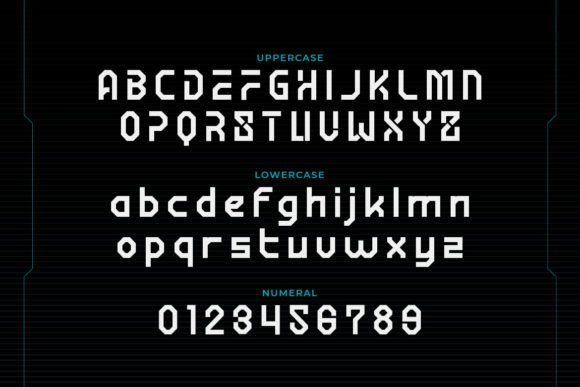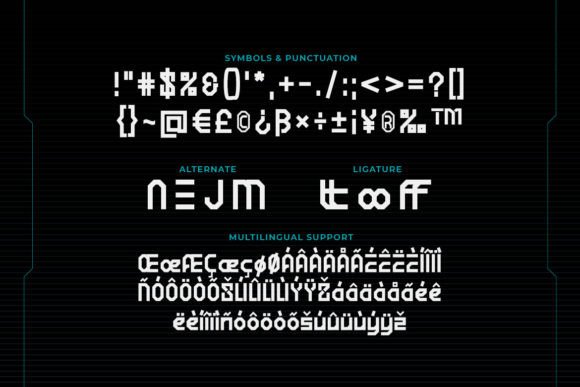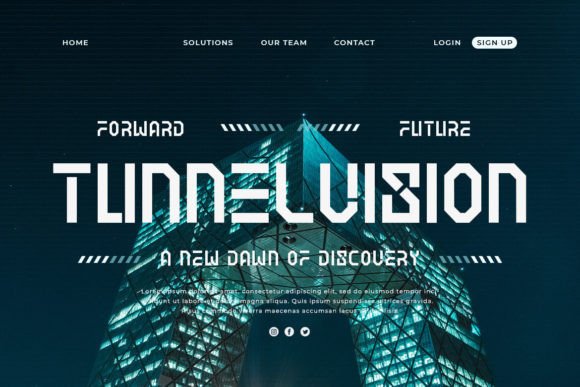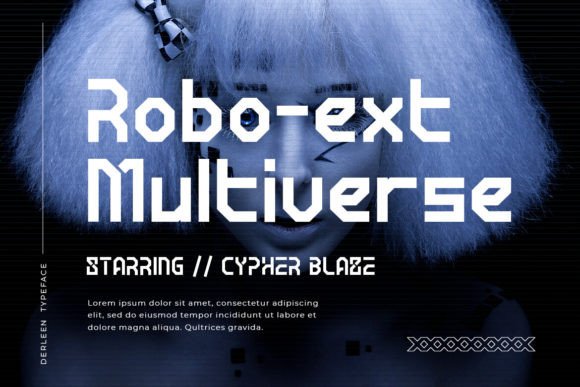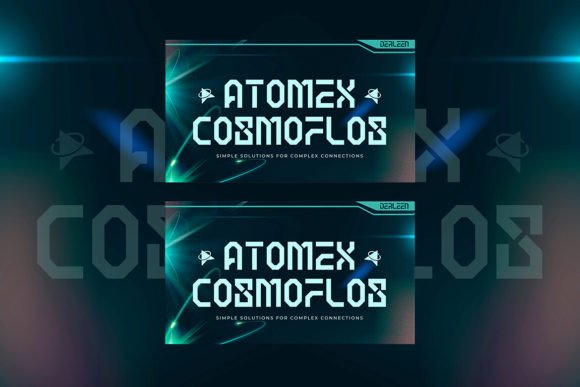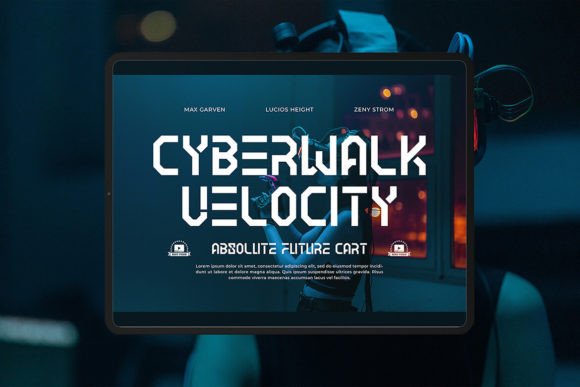
Introducing Derleen Font: The Futuristic Typeface Revolutionizing Design
In the realm of design, typography plays a pivotal role in conveying the essence and aesthetic of a project. For those seeking to infuse their creations with a futuristic vibe, the “Derleen” font emerges as a game-changer. This cutting-edge typeface is engineered to catapult your designs into the next dimension, seamlessly blending sleek sophistication with avant-garde style.
The Essence of Futuristic Design: Sharp Lines and Geometric Precision
At the heart of “Derleen” lies its sharp lines and geometric precision, hallmarks of futuristic design. This typeface is meticulously crafted to embody the sleekness and modernity that define forward-thinking aesthetics. Each character in “Derleen” is designed with a bold and dynamic flair, ensuring that your designs not only capture attention but also convey a sense of innovation and progress.
Versatility Across Design Projects
One of the standout features of “Derleen” is its versatility. Whether you’re working on sci-fi posters that transport viewers to otherworldly realms, tech-themed branding that requires a modern edge, futuristic UI/UX designs that demand clarity and sophistication, or sleek editorial layouts that aim to captivate and engage, “Derleen” proves to be an invaluable asset. Its adaptability ensures that it can elevate a wide range of projects, adding a touch of futuristic elegance that sets your work apart.
Enhancing Designs with Modern Sensibility
“Derleen” brings more than just a futuristic look to your designs; it infuses them with a modern sensibility that resonates with contemporary audiences. Its forward-thinking approach allows designers to push the boundaries of conventional design, experimenting with bold and visionary styles that were previously out of reach. With “Derleen,” you’re not just choosing a typeface; you’re embracing a design philosophy that prioritizes innovation and creativity.
Empowering Designers to Lead the Way
In a world where design trends are constantly evolving, staying ahead of the curve is crucial for designers and creatives. “Derleen” serves as a powerful tool in this pursuit, empowering users to lead the way with designs that are not only aesthetically pleasing but also conceptually bold. By integrating “Derleen” into your projects, you’re making a statement about your commitment to cutting-edge design and your willingness to explore new frontiers in visual communication.
Key Features of Derleen Font
- Sharp Lines and Geometric Precision: Giving “Derleen” its distinctive futuristic look.
- Bold and Dynamic Aesthetic: Making it perfect for designs that require a strong visual impact.
- Versatility: Suitable for a wide range of projects, from sci-fi and tech to editorial and UI/UX.
- Modern Sensibility: Ensuring your designs feel contemporary and forward-thinking.
- Easy to Read: Despite its futuristic design, “Derleen” maintains readability across various sizes and applications.
“Derleen” is more than just a typeface; it’s a gateway to creating designs that are truly of the future. Its unique blend of sleek sophistication and cutting-edge style makes it an indispensable tool for designers looking to make a statement. Whether you’re a seasoned professional or an aspiring creative, “Derleen” invites you to step into the future of design. With its bold and visionary style, this futuristic typeface is poised to revolutionize the way we approach visual communication, one project at a time.
Embark on a journey to elevate your designs with the futuristic flair of “Derleen.” Discover how this innovative typeface can transform your projects, making them stand out with a sophistication and modernity that defines the next dimension of design.